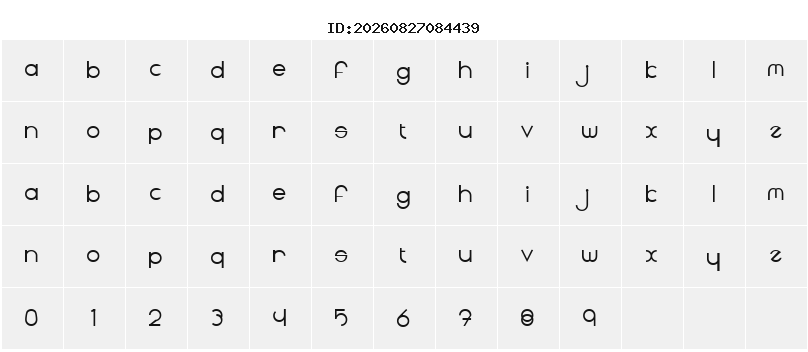
3代呼吸英文-阿迪达斯 Preview
• Font Name: 3代呼吸英文-阿迪达斯
• Full Font Name: 3代呼吸英文-阿迪达斯
About 3代呼吸英文-阿迪达斯.ttf
3代呼吸英文-阿迪达斯.ttf is a modern, elegant sans-serif font designed for ultimate readability and visual harmony. Perfect for branding, headlines, web design, and print materials.